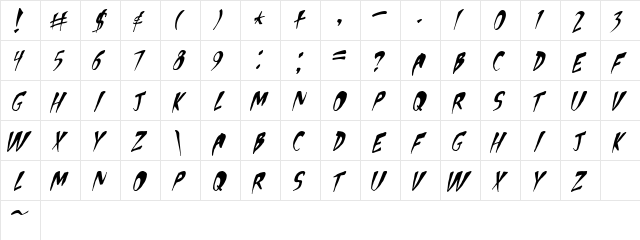
Apocalypse 1
Design Context for Apocalypse Typeface
Apocalypse is a composed and adaptable typeface that performs quietly and consistently across a wide range of design contexts.